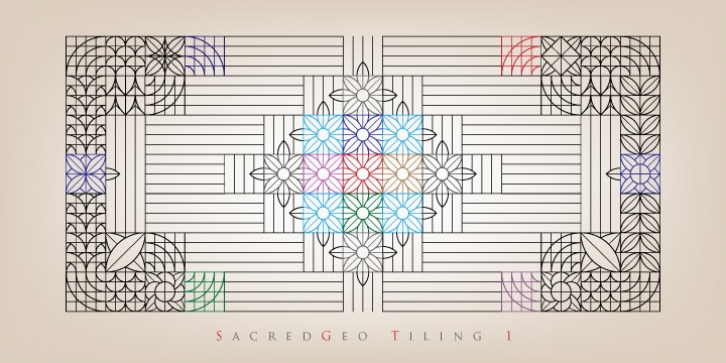
SacredGeo Tiling is a Dingbat font that contains a very varied pattern of classical geometry, to play with them and combining to create beautiful backgrounds, decorating pages, posters, covers, or creating lines, repeated or alternating sequences and very useful for creating frames. Due to the wide range of patterns of possible combinations is nearly infinite number of results, especially if you create different layers of colors or shades and blend them or breaking them to be colored in sections.